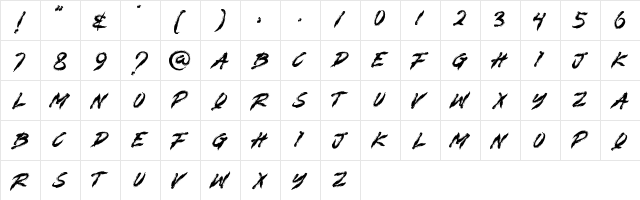
MONSTERA Regular
Design Context for MONSTERA Typeface
MONSTERA is a composed and adaptable typeface that performs quietly and consistently across a wide range of design contexts.